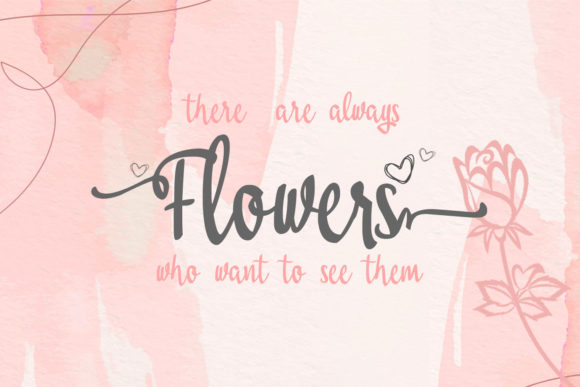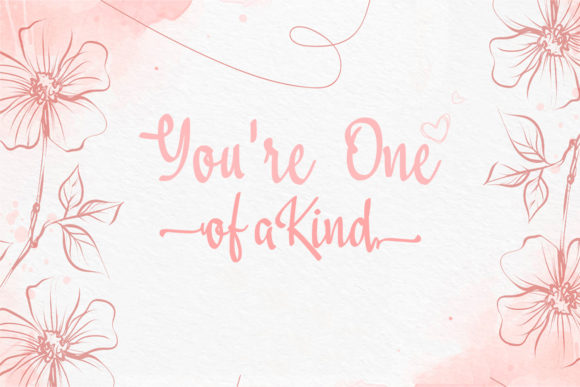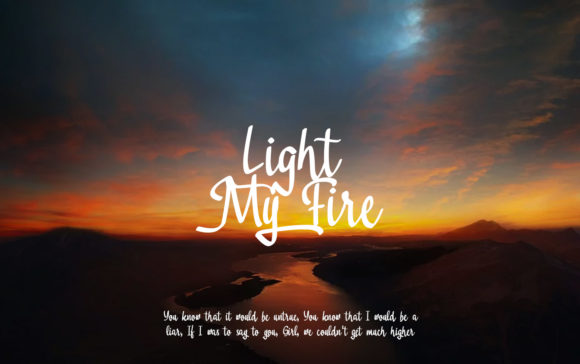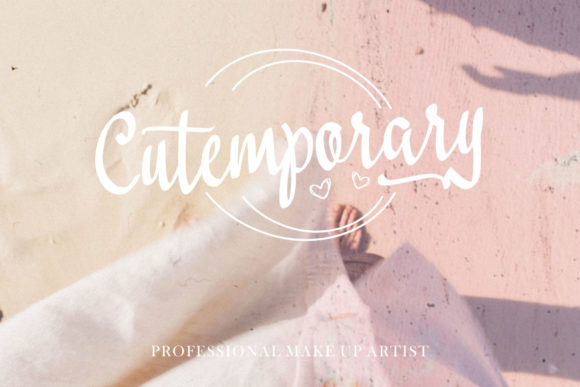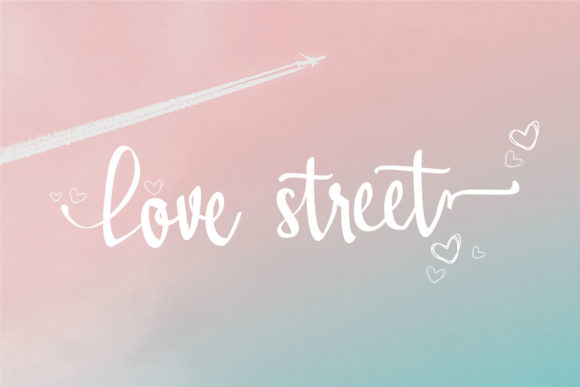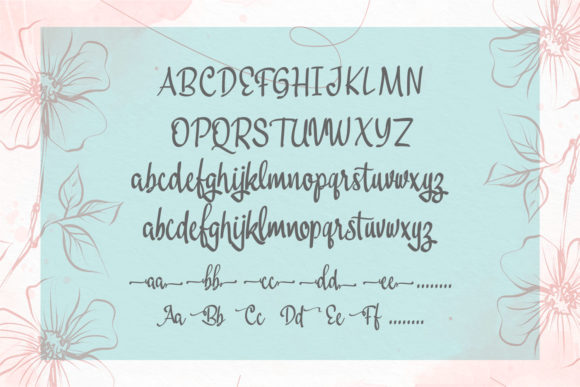
Introduction to Lovestreet Font
Remember that magical moment when you stumbled upon the perfect font for your creative project? For designers, it’s like discovering a treasure trove of inspiration. The right font can elevate your design from good to great, and make it truly stand out. I still recall the thrill of finding the Lovestreet Font, which has since become my go-to choice for any project that requires a touch of romance and whimsy.
With its gorgeous handwritten style and beautiful swashes, the Lovestreet Font is a design resource that’s hard to resist. Whether you’re creating a wedding invitation, a social media post, or a DIY project, this high-quality font is sure to add a personal touch. Its transparent background makes it easy to use on any design, and its free download option makes it accessible to designers of all levels.
As a designer, having access to a versatile and high-quality font like Lovestreet Font can be a game-changer. It’s not just a design element – it’s a key to unlocking your creativity and bringing your vision to life.
Key Features of Lovestreet Font
- The Lovestreet Font is a high-quality design resource ideal for creative projects, offering a unique and stylish aesthetic.
- This font comes with a transparent background, allowing for seamless integration into various design elements.
- Each font file includes a comprehensive character set, including uppercase and lowercase letters, numbers, and special characters.
- The Lovestreet Font is designed at a high resolution (300 DPI), ensuring crisp and clear typography in various print and digital applications.
- This creative font is perfect for designers looking to add a touch of elegance and sophistication to their designs, from branding and marketing materials to digital products and websites.
Honest Review: Lovestreet Font
I recently had the chance to work with the Lovestreet Font, and I must say it’s a great addition to any design resource. The font is a high-quality, modern script font that’s perfect for creative projects.
- ✨ The font has a very clean and elegant design that’s easy to read.
- ✨ It comes with a transparent background option, making it easy to layer over other design elements.
- ✨ The font is highly versatile and can be used for a variety of creative projects, from wedding invitations to social media graphics.
- ⚠️ The font may not be suitable for large blocks of text, as it can be difficult to read in certain contexts.
- ⚠️ Some users may find the font to be a bit too playful or cursive for certain design projects.
Overall, I’m impressed with the Lovestreet Font. It’s a great free download that can add a touch of elegance and sophistication to any design project. While it may have some limitations, it’s a valuable addition to any design resource.
Tips for Getting the Most Out of Lovestreet Font
For a high-quality look, use Lovestreet Font with a transparent background. This will allow the font to stand out and give your design a professional touch. You can also experiment with different font sizes and colors to add visual interest to your design.
Lovestreet Font is a versatile design resource that can be used in a variety of creative projects, including logos, business cards, and social media graphics. Its high-quality design makes it perfect for any project where you want to make a lasting impression.